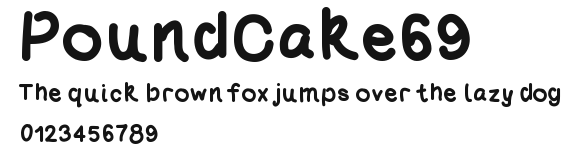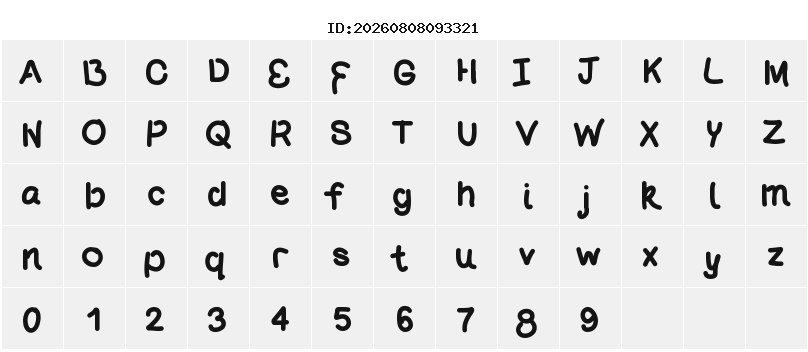
PoundCake69 Preview
• Font Name: PoundCake69
• Font ID: TheAutumnRabbit:PoundCake69
• Full Font Name: PoundCake69
• PostScript Name: PoundCake69
About PoundCake69.ttf
PoundCake69.ttf is a modern, elegant sans-serif font designed for ultimate readability and visual harmony. Perfect for branding, headlines, web design, and print materials.